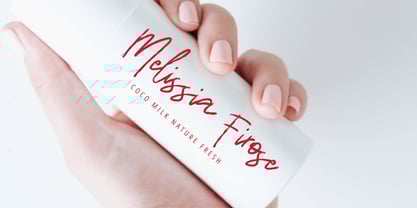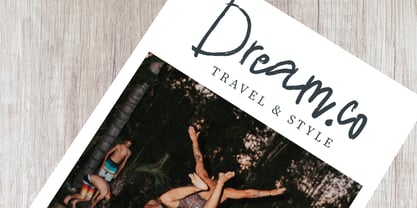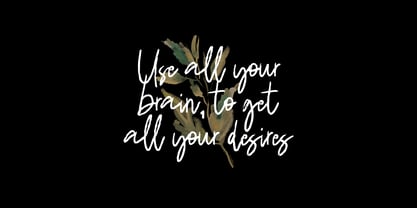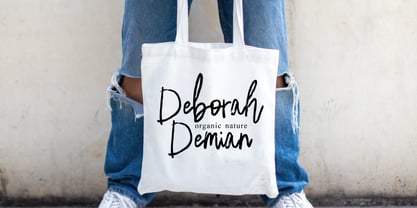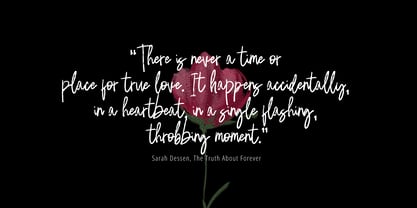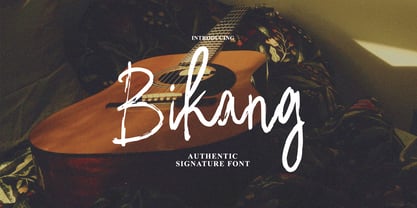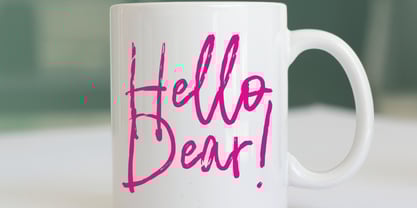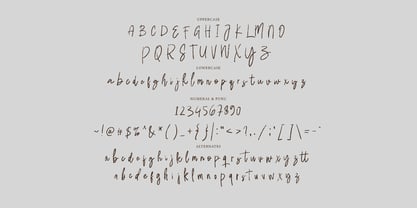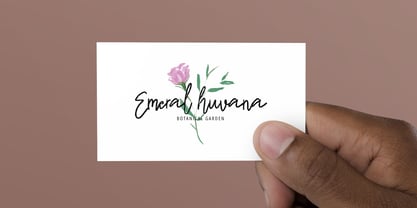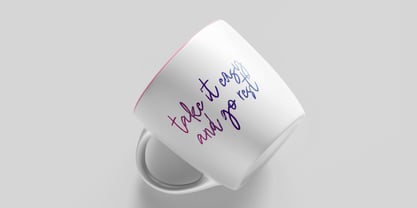
Bikang brush signature
by ijemrockart
The Bikang brush signature Font Family was designed by Ferdiansyah and published by ijemrockart. Bikang brush signature contains 1 styles. More about this family
Bikang Brush Signature with a handmade calligraphy style, decorative characters and a dancing baseline! So beautiful on invitation like greeting cards, branding materials, business cards, quotes, posters, and more!!